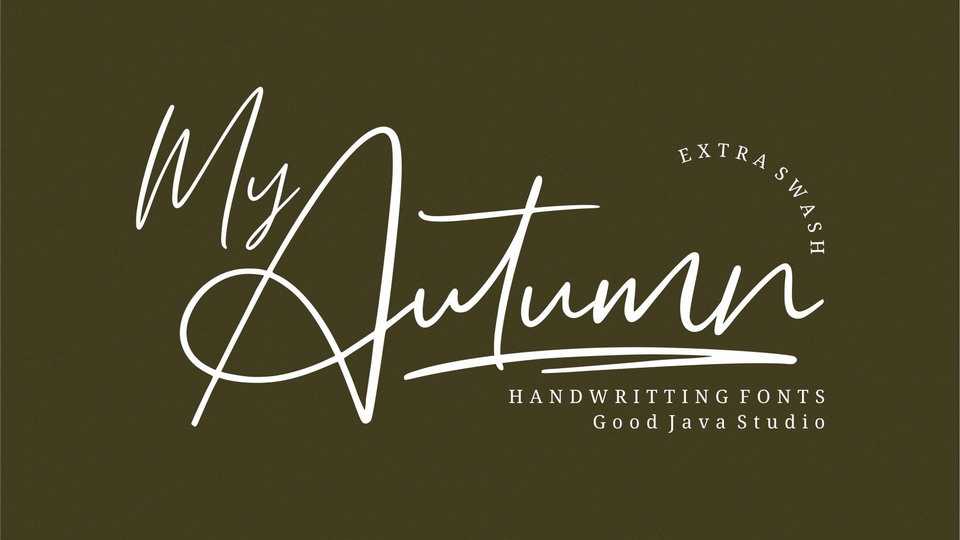
Download My Autumn font, a stylish, natural looking signature script. My Autumn is great for branding, logotype, handletteing, invitations or fashion branding.
Designer: Good Java Studio